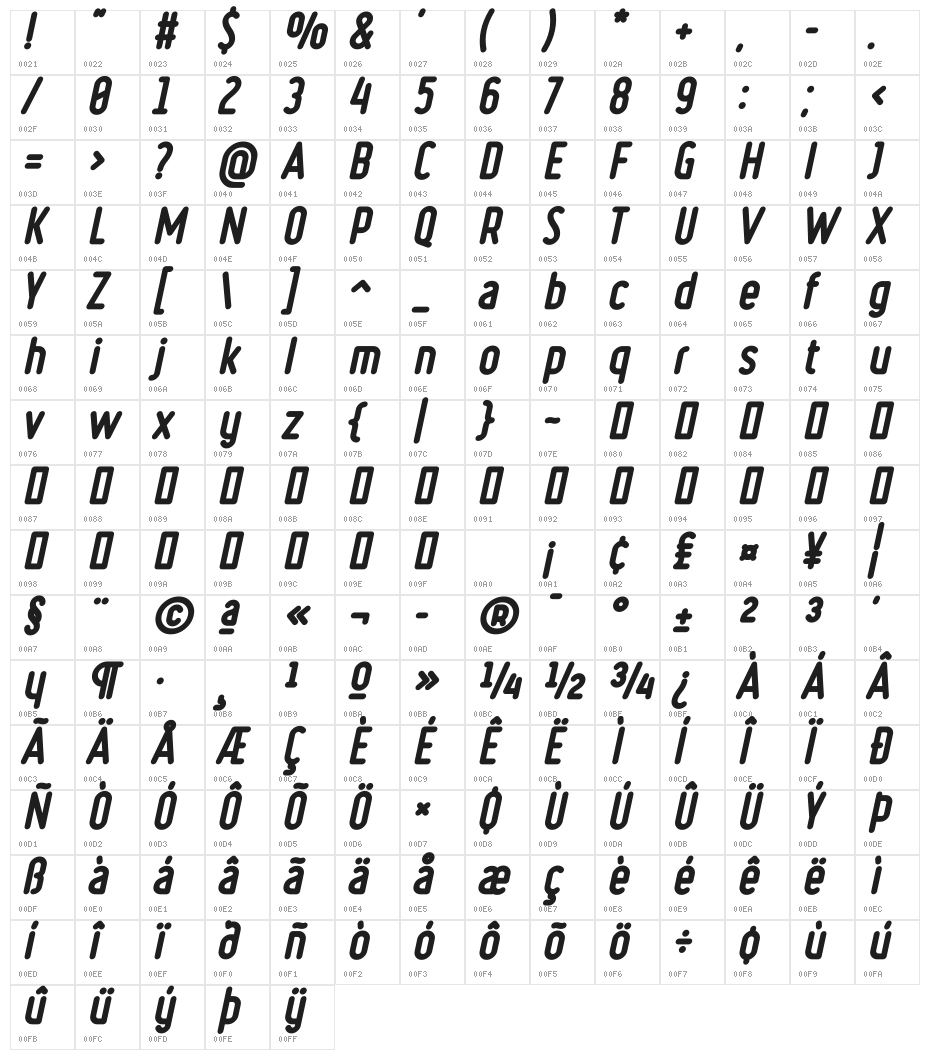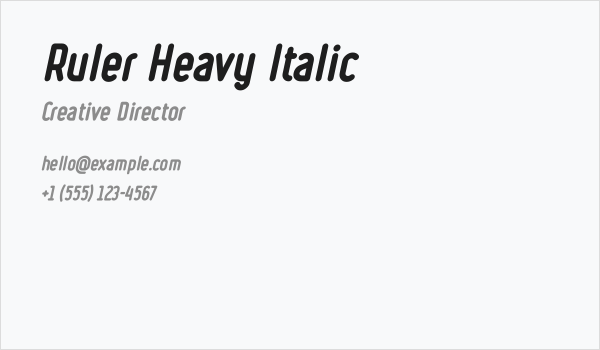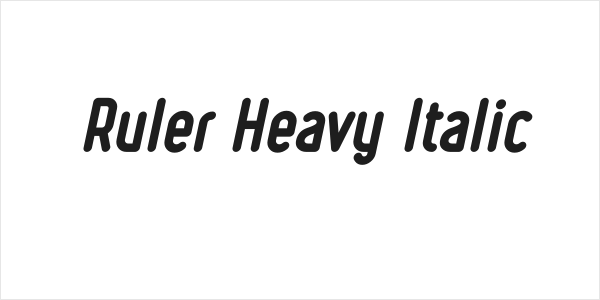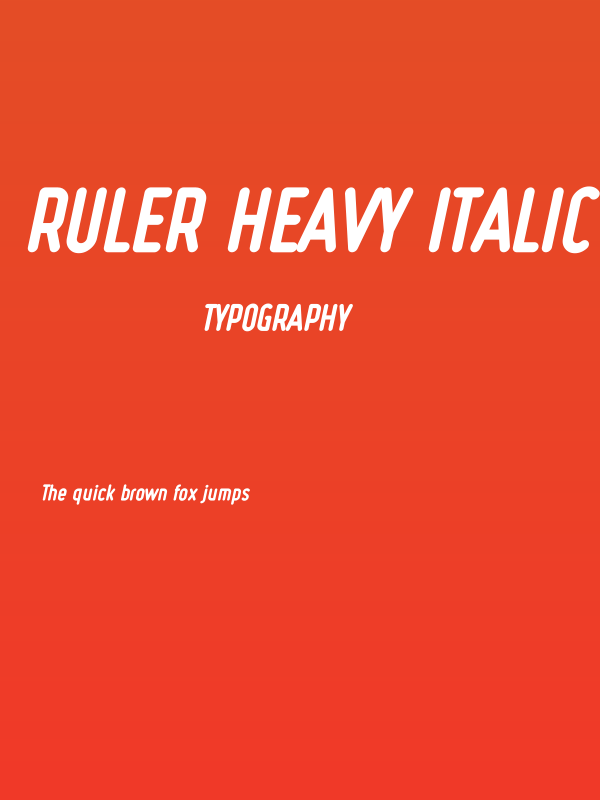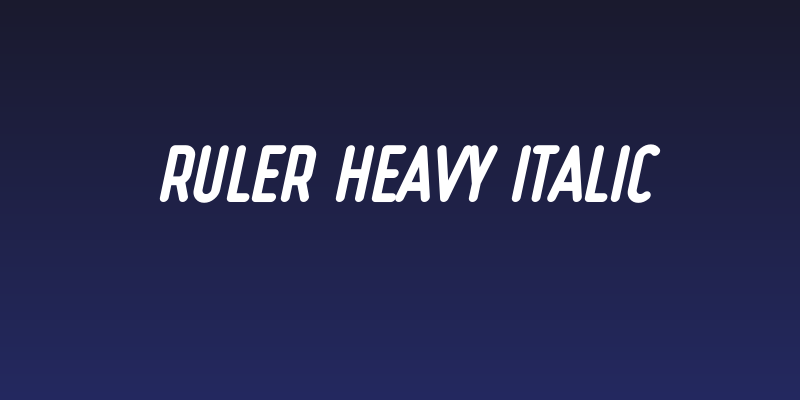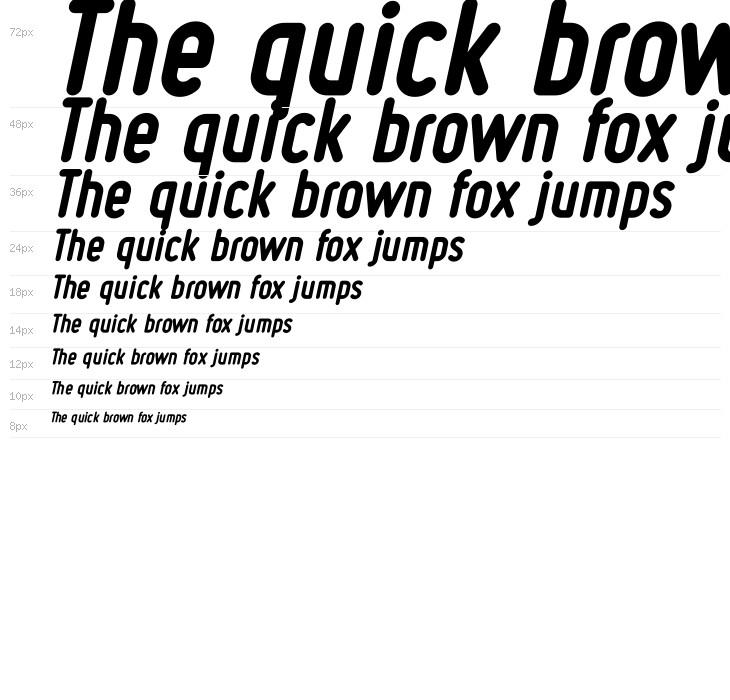
Ruler Heavy Italic Font
Ruler Heavy Italic Description
This font features a bold and dynamic style with a pronounced italic slant, giving it a sense of movement and energy. The characters are thick and rounded, providing a strong visual impact. The uppercase and lowercase letters maintain a consistent weight, ensuring readability while adding a modern flair. The numerals and special characters are designed with the same boldness, making them stand out effectively. This font's overall appearance is sleek and contemporary, suitable for projects that require a bold statement.
| Proposed Projects | Ideal for branding, advertising, headlines, and any design that requires a strong, impactful presence. |